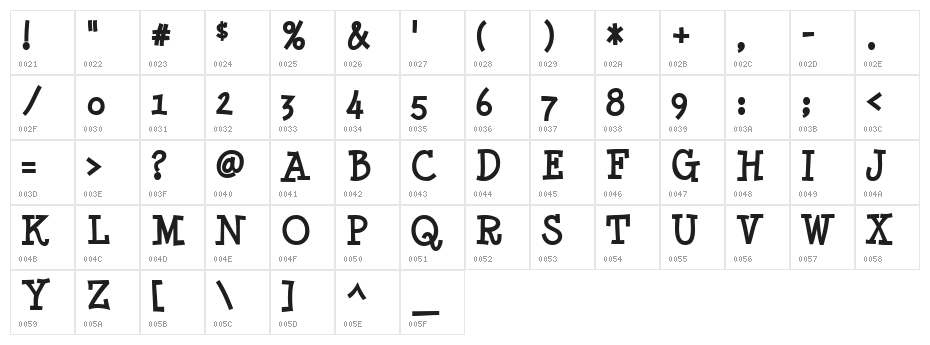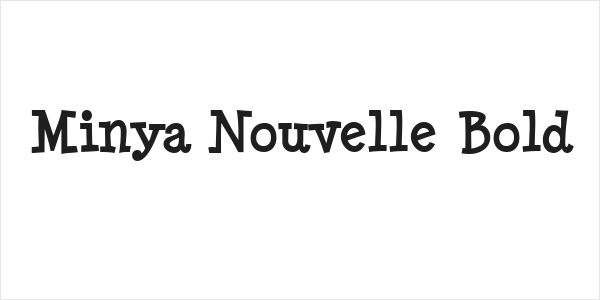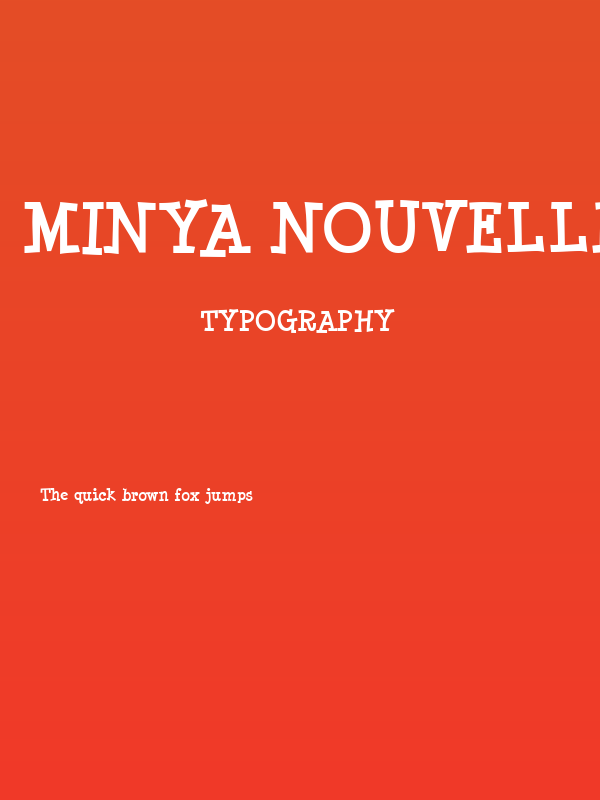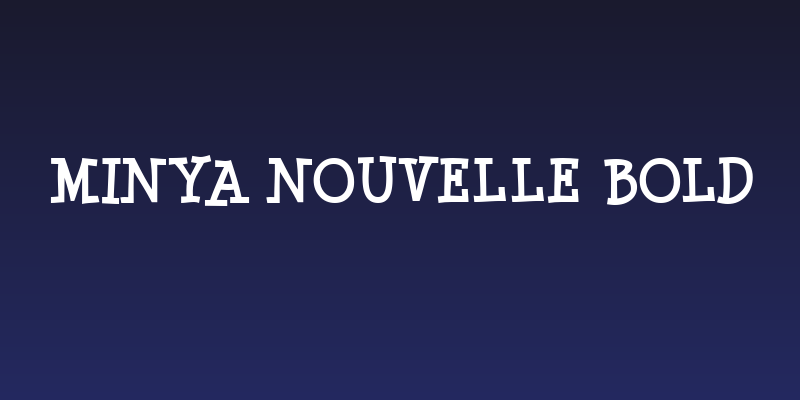
Minya Nouvelle Bold Font
Minya Nouvelle Bold Description
This font exhibits a playful and bold character with a distinctive, slightly whimsical style. The letters are robust and have a strong presence, featuring exaggerated serifs and a slight tilt that adds a dynamic feel. The uppercase and lowercase letters maintain a consistent weight, providing a cohesive look. Numbers and special characters follow the same bold and playful design, making them stand out. The overall appearance is both fun and assertive, suitable for projects that require a touch of personality and flair.
| Overall Style | Playful, Dynamic |
| Proposed Projects | Ideal for children's books, playful branding, posters, and creative headlines. |